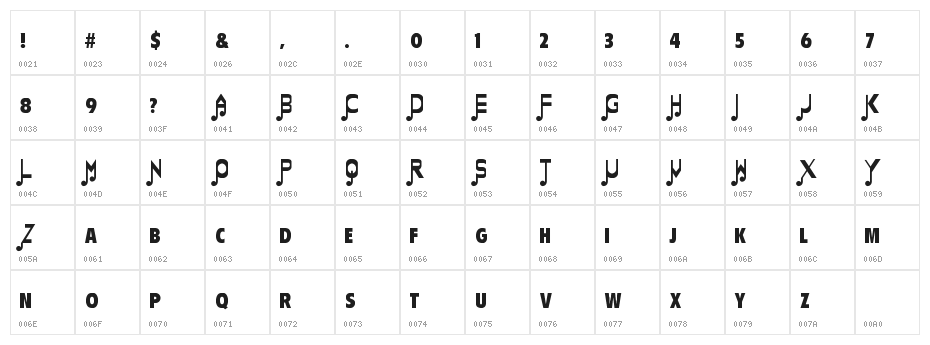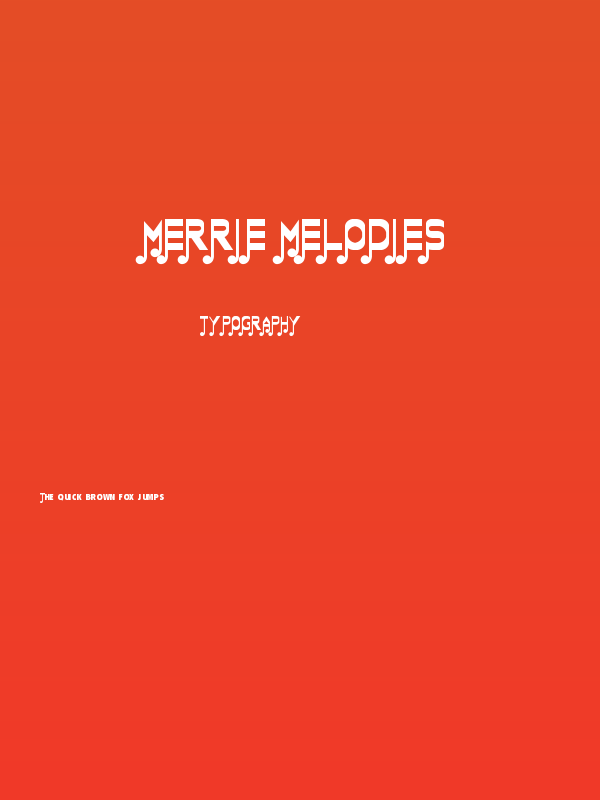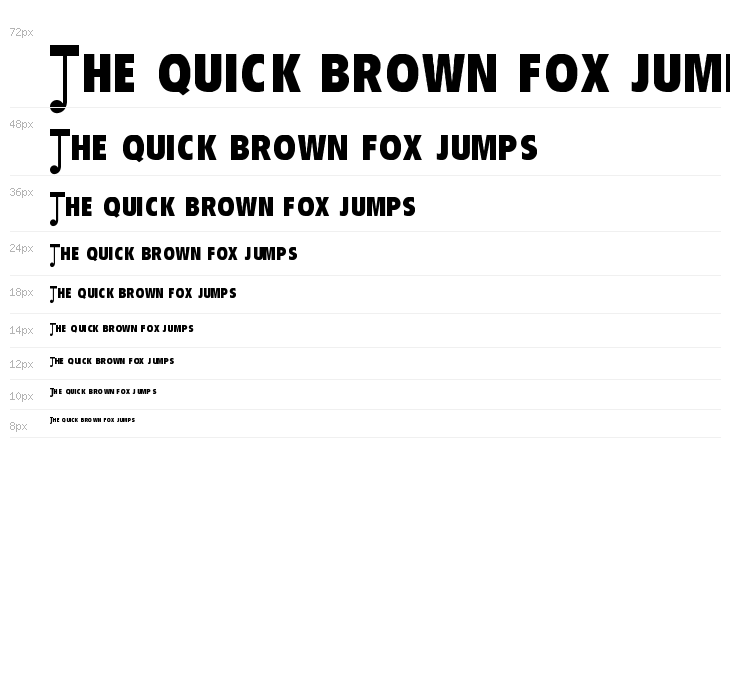
Merrie Melodies Font
Merrie Melodies Description
This font features a playful and whimsical style, with musical note elements integrated into the design of each letter. The uppercase letters are bold and have a unique character with musical notes as part of their structure, giving a lively and dynamic feel. The numbers and special characters maintain a consistent boldness, ensuring readability while keeping the playful theme. The font is ideal for projects that require a fun and engaging aesthetic, such as children's books, music-related branding, or entertainment posters.